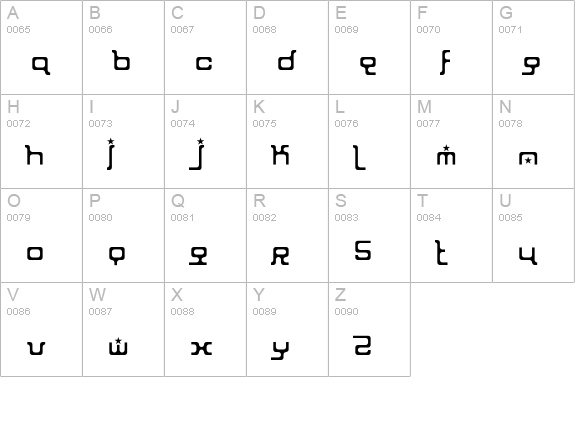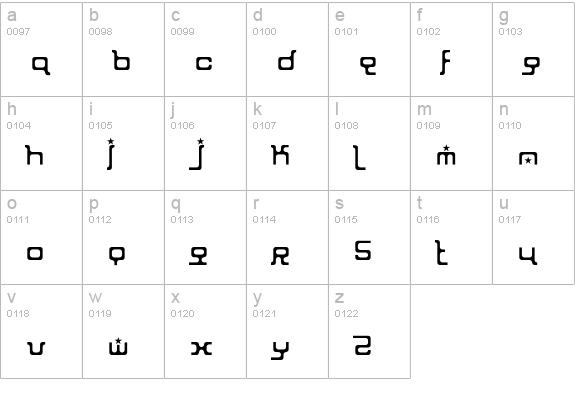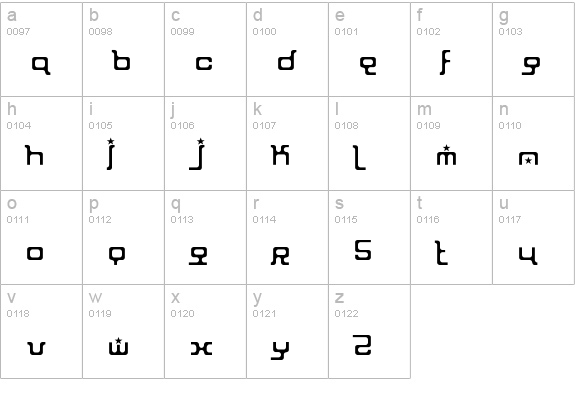
Ion Font Details
Ion font is a stunning typeface that exudes elegance and modernity. Its sleek and geometric design captures attention and adds a touch of sophistication to any design project. With its clean lines and balanced proportions, Ion font is perfect for both headlines and body text. What makes Ion font even more appealing is that it is available for free download at FontsMarket.com. This means that you can easily access and use this beautiful font without any cost. Whether you are a professional graphic designer or simply someone who loves typography, Ion font is a must-have in your collection. The versatility of Ion font allows it to be used in various creative endeavors, from website design to branding and print materials. Its simplicity and readability make it suitable for a wide range of applications, ensuring that your message is conveyed effectively to your audience. With Ion font, you have the freedom to explore your creativity and bring your design visions to life. Its clean and modern aesthetic will elevate any project, giving it a professional and polished look. Download Ion font for free at FontsMarket.com and add a touch of elegance to your next design project.